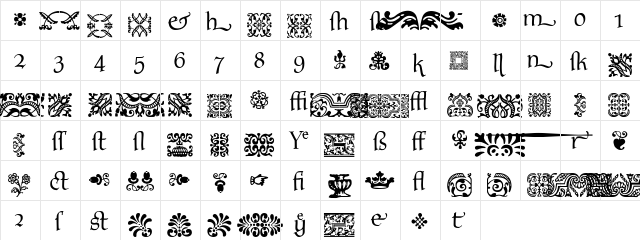
Tynxtras Regular
Design Context for Tynxtras Typeface
Tynxtras is a composed and adaptable typeface that performs quietly and consistently across a wide range of design contexts.